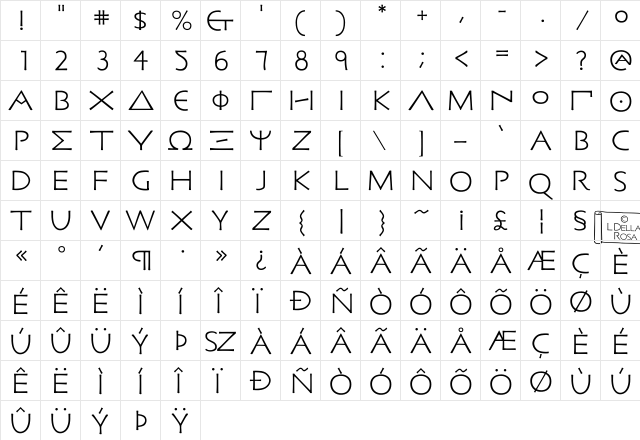
Malatestian Regular
Design Context for Malatestian Typeface
Malatestian offers clean, dependable letterforms without strong stylistic allegiance, making it a practical choice for designers who need flexibility.
Pro Tip: Pair Malatestian with a font of contrasting weight or personality to build a more expressive typographic hierarchy.